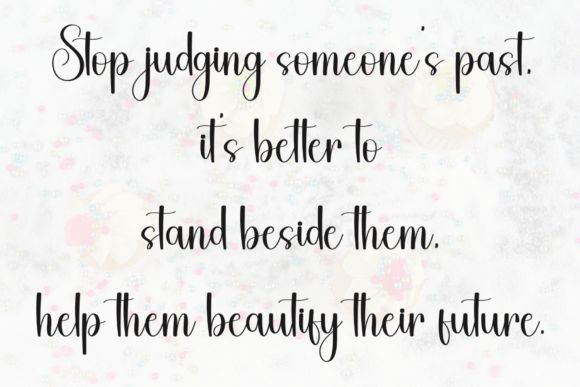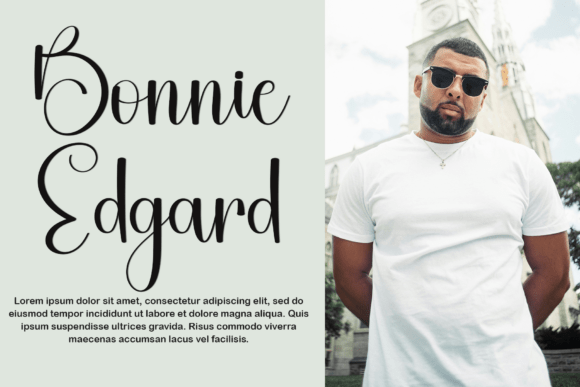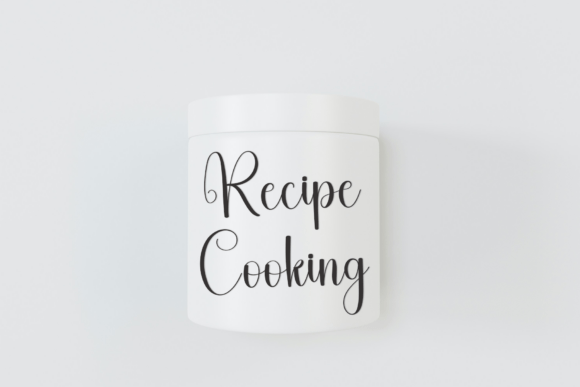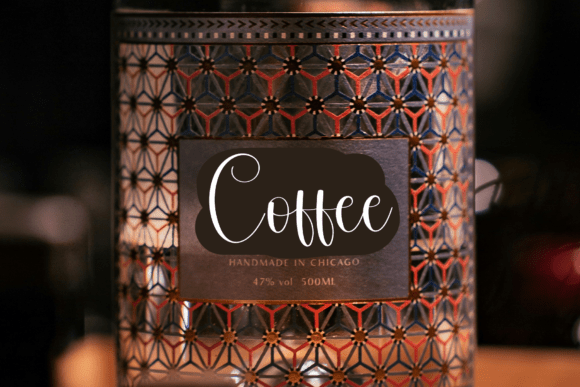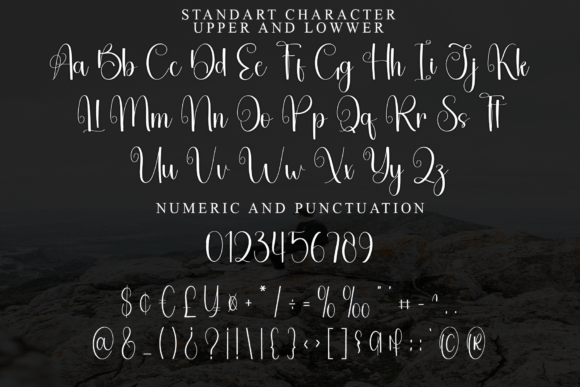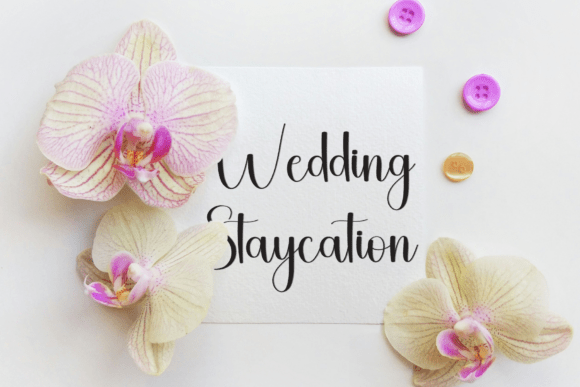
Unleash Your Creativity with Alphabet Script Font
Have you ever stared at a blank canvas, waiting for inspiration to strike? For many designers, this is a familiar moment – a spark of creativity waiting to ignite. It’s in these moments that we turn to the perfect tool to bring our visions to life, and that’s where the Alphabet Script Font comes in.
This beautiful and eye-catching font is designed to add a touch of uniqueness to any design project. Its soft, distinctive strokes make it the perfect choice for crafts, creative works, and even everyday writing. With its versatility and compatibility across various applications, including Windows and open-source platforms, the Alphabet Script Font is an essential addition to any designer’s toolkit.
Key Features of Alphabet Script Font
- Font Style: A beautiful, elegant script font with a personal touch, ideal for creating a warm and inviting atmosphere in designs.
- Unique Characteristics: Features a unique blend of traditional and modern elements, with intricate flourishes and subtle texture, adding a touch of sophistication to any design.
Alphabet Script Font Review
I recently had the chance to work with the Alphabet Script Font, and here’s my honest take on it. ✨ One of the things I liked most about this font is its elegance and sophistication. It’s perfect for creating a high-end, luxurious feel in your designs.
Another great thing about Alphabet Script Font is its versatility. It can be used for a wide range of projects, from invitations and greeting cards to logos and branding materials. The font is highly customizable, allowing you to adjust the size, color, and spacing to fit your specific needs.
While the Alphabet Script Font is great in many ways, there are a few limitations to keep in mind. ⚠️ One of the main issues is that the font can be quite difficult to read, especially at small sizes. This can make it challenging to use in situations where clear readability is crucial.
Overall, I think the Alphabet Script Font is a solid choice for designers looking to add a touch of elegance to their projects. While it may not be suitable for every situation, it’s definitely worth considering for projects where a high-end feel is desired.
Alphabet Script Font is ideal for creating elegant and sophisticated designs, such as:
– Wedding invitations
– Birth announcements
– Menu designs
– Branding materials
For optimal results, use the font in conjunction with high-quality images and a clean design aesthetic.